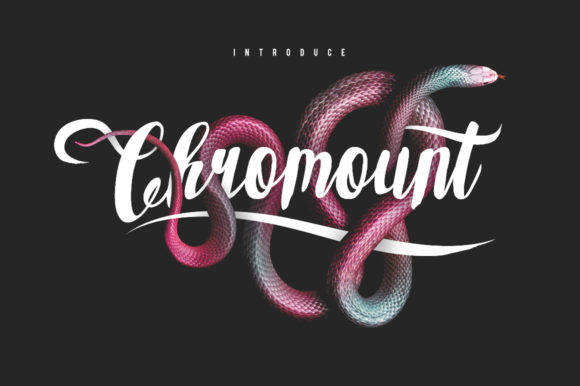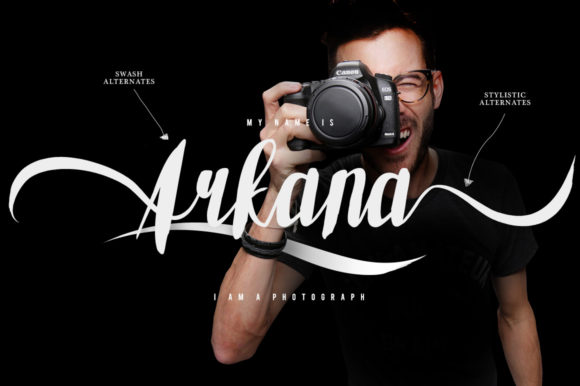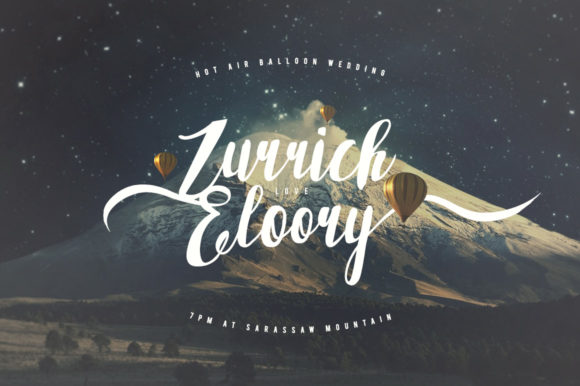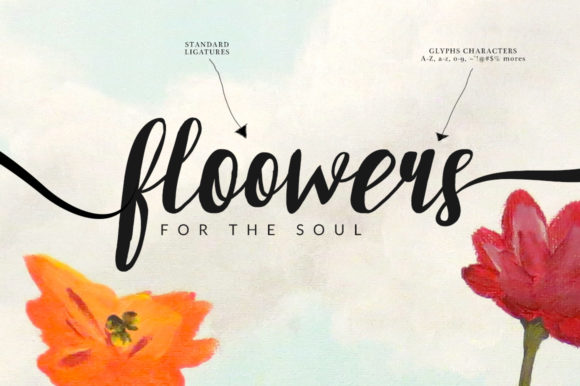
HomeScript FontsChromount Script Fonts Chromount Script Font FacebookXPinterestWhatsApp Chromount Script Font Poster 2 Chromount Script Font Poster 3 Chromount Script Font Poster 4 Chromount Script Font Poster 5 About Chromount Script Font Chromount is the ideal font for adding a sweet charm to any design project! DOWNLOAD ON CREATIVE FABRICAThis font is sold and delivered by Creative Fabrica. Font Canyon may earn a commission if you buy through this link. People also explored Thesen Font Another Font Wanderlust Font Deeproxx Font Keysha Font Cabins and Castles Font Angellina Font Aleena Groovy Font Saluzzo 294 0 TagsChromount Script Font Previous articleLambola FontNext articleHamoni Font LEAVE A REPLY Cancel reply Comment: Please enter your comment! Name:* Please enter your name here Email:* You have entered an incorrect email address! Please enter your email address here Website: Save my name, email, and website in this browser for the next time I comment. Personal Use Free Nickainley Personal Use Free Read more about this font Sea Gardens Personal Use Free Read more about this font Vanilla Whale Personal Use Free Read more about this font Chandella Personal Use Free Read more about this font BLOG Free Fonts Risk: Why Free Fonts Can Be Dangerous for Designers Free Fonts Risk: Why Free Fonts Can Be Dangerous for Designers Using free fonts is a common practice in web and graphic design. However, the... The 10 Best Handwriting Fonts to Add Personality to Your Designs Using Fonts in Digital Marketing: Tips to Strengthen Your Brand Identity Modern Sans-Serif Fonts That Brands Love in 2025